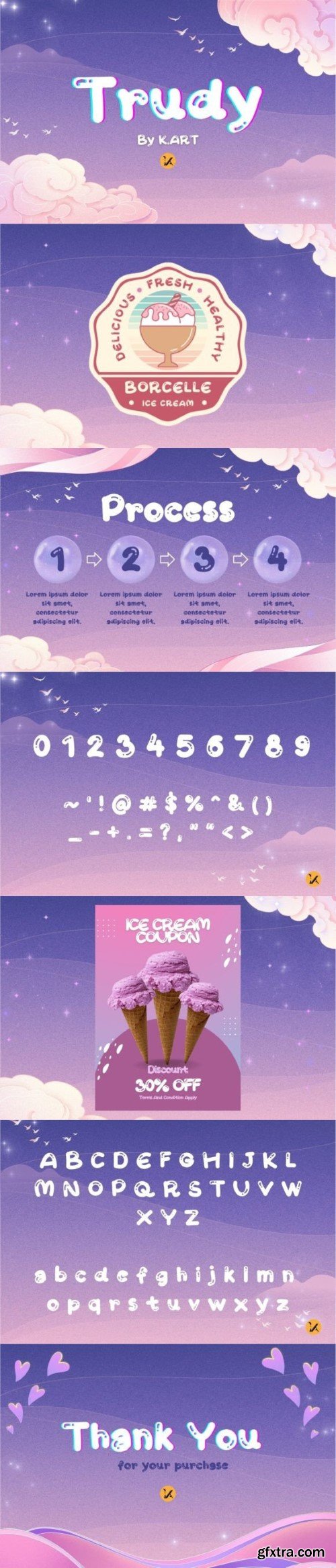
朱迪·-font
Trudy is a cute and quirky display font. It will add an incredibly joyful touch to your designs. Add this beautiful display font to each of your creative ideas and notice how it makes them stand out!